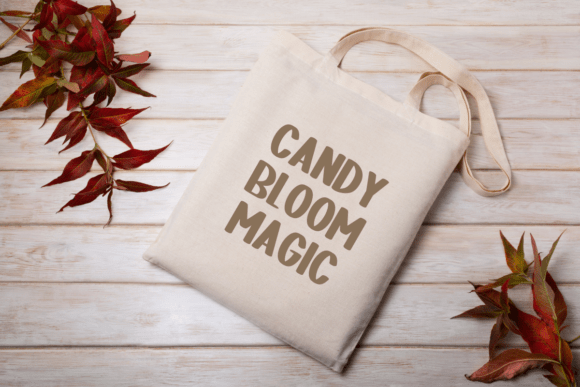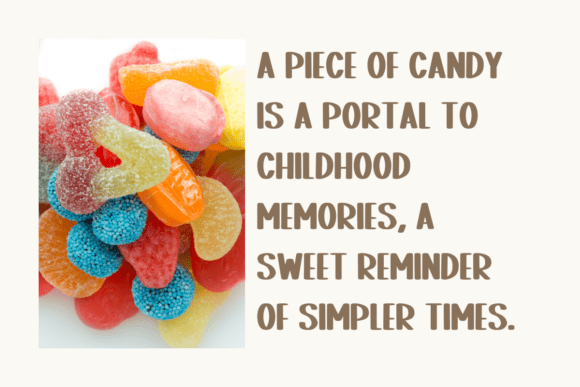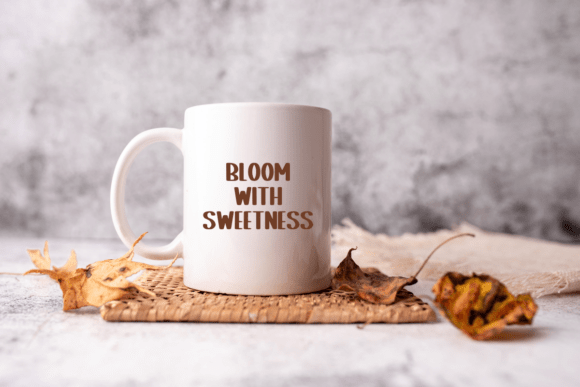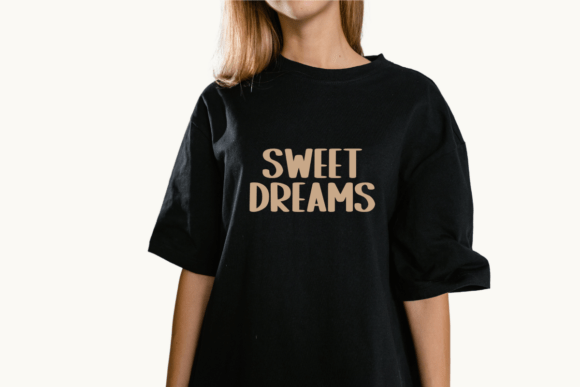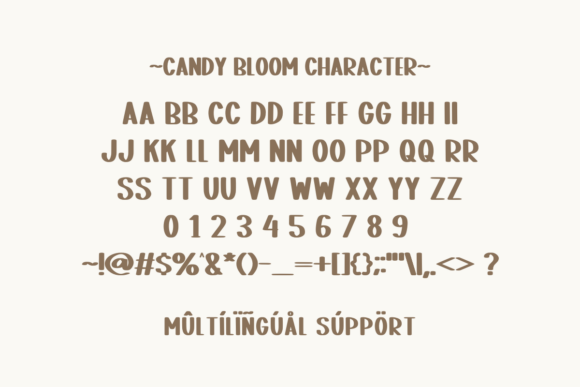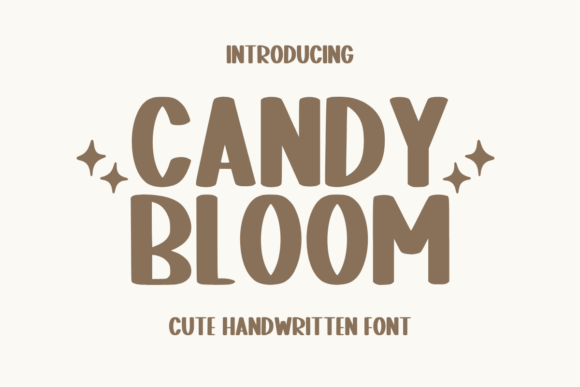
Candy Bloom Font: The Sweetest Addition to Your Design Toolbox
Are you on the hunt for a font that bursts with sweetness and charm? Look no further than Candy Bloom, a delightful handwritten font that’s sure to capture the hearts of designers and crafters alike. With its bold, rounded characters and warm, inviting vibe, Candy Bloom is the perfect addition to your design toolbox.
What Makes Candy Bloom So Special?
Candy Bloom is more than just a font – it’s an experience. Its bold, rounded characters radiate warmth and friendliness, making it perfect for designs that need a touch of whimsy and playfulness. Whether you’re working on product packaging, kids’ apparel, toy branding, or whimsical quotes, Candy Bloom is the perfect choice.
Perfect for Product Packaging
Product packaging is all about making a statement and standing out on crowded store shelves. With Candy Bloom, you can add a touch of sweetness and charm to your packaging designs that will make them impossible to ignore. From candy and baked goods to toys and crafts, Candy Bloom is the perfect font for product packaging that needs to appeal to a wide audience.
Kids’ Apparel and Toy Branding
Kids’ apparel and toy branding require a font that’s fun, playful, and engaging. Candy Bloom fits the bill perfectly, with its bold, rounded characters and whimsical vibe. Use it to create adorable onesies, t-shirts, and hoodies that kids will love, or to brand toys and games that will delight kids of all ages.
Whimsical Quotes and Social Media Graphics
Candy Bloom is also perfect for creating whimsical quotes and social media graphics that will make your followers smile. Its warm, inviting vibe makes it perfect for sharing inspirational quotes, fun facts, and playful sayings that will brighten up anyone’s day. Use it to create eye-catching social media graphics, blog posts, and more that will make your audience feel like they’re treated to a sweet surprise.
Why Designers and Crafters Love Candy Bloom
So why do designers and crafters love Candy Bloom so much? Here are just a few reasons:
- Easy to read: Despite its bold, rounded characters, Candy Bloom is surprisingly easy to read, even at small sizes.
- Versatile: Candy Bloom can be used for a wide range of design projects, from product packaging to social media graphics.
- Fun and playful: Candy Bloom is the perfect font for designs that need a touch of whimsy and playfulness.
- High-quality: Candy Bloom is a high-quality font that’s been carefully crafted to ensure that it looks great in any design.
How to Use Candy Bloom in Your Designs
- Experiment with colors: Candy Bloom looks great in a wide range of colors, from bright and bold to pastel and soft.
- Use it for headings and titles: Candy Bloom is perfect for headings and titles, where its bold, rounded characters can really make a statement.